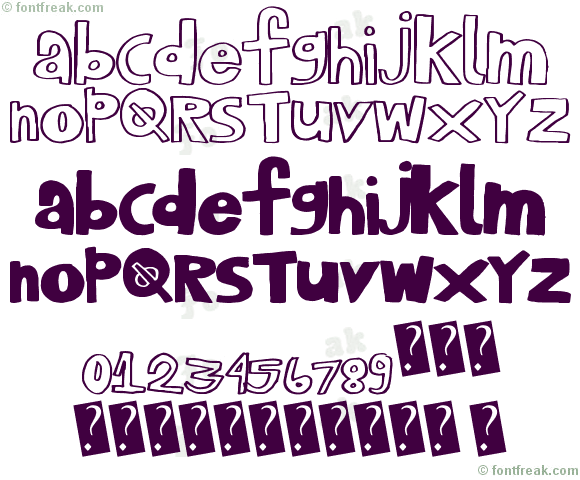
PlayHouse
About PlayHouse
The PlayHouse font by Xerographer Fonts is a playful and whimsical display typeface that captures the essence of childhood and creativity. Released in 2012, this font features rounded, bold letterforms that exude a friendly and inviting vibe. The stroke weight is consistent throughout, providing a strong and cohesive look, while the slight irregularities in the letter shapes add a handmade feel, enhancing its charm. The spacing is thoughtfully designed to ensure readability, making it suitable for various applications.
PlayHouse is an excellent choice for a range of creative projects. Its cheerful aesthetic makes it particularly well-suited for children’s book covers, playful branding for family-oriented businesses, and vibrant posters for events or parties. Additionally, it can bring a unique touch to wedding invitations, where its casual elegance can set a lighthearted tone. Restaurant menus that aim for a fun, family-friendly atmosphere can also benefit from the engaging personality of this typeface.
In a crowded market of typefaces, PlayHouse stands out for its distinctive character and versatility. It effortlessly combines fun with functionality, making it a valuable addition to any designer’s toolkit. For those seeking a unique font that can elevate their projects, the PlayHouse font free download is a must-have resource that is sure to leave a lasting impression.